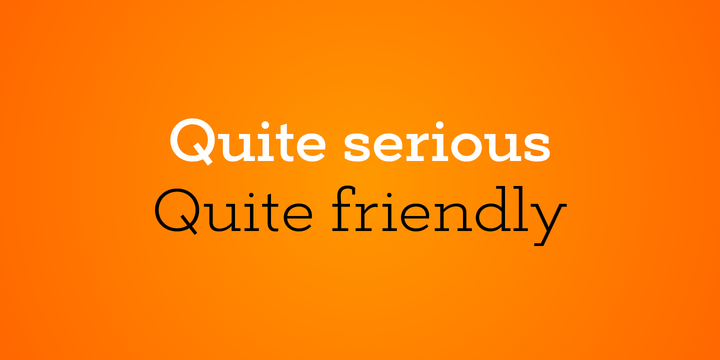
Deposit Pro Font Family
Befonts introduce to you the new font family, introduction Deposit Pro Font Family! Deposit Pro designed by Mint Type. Deposit Pro is a wide slab-serif family with low x-height. In both headlines and paragraph text it creates a serious yes friendly texture, making it particularly suitable for corporate communication design…